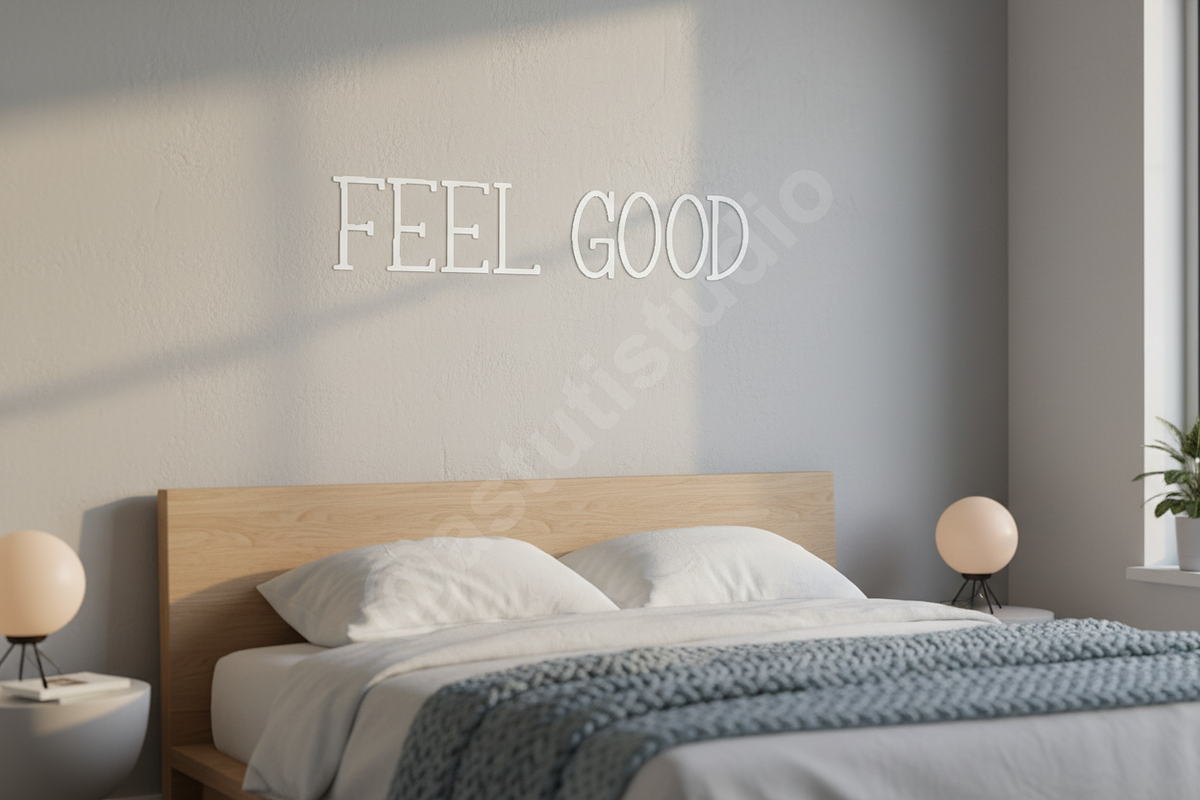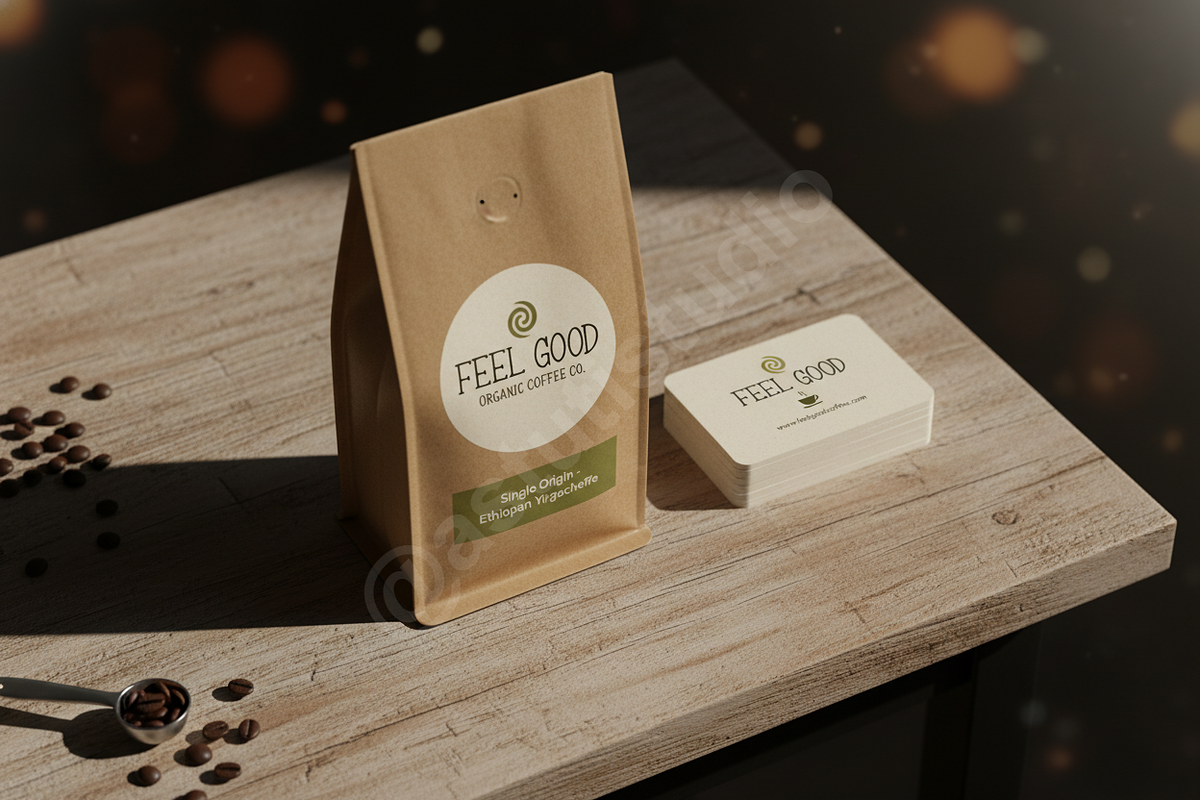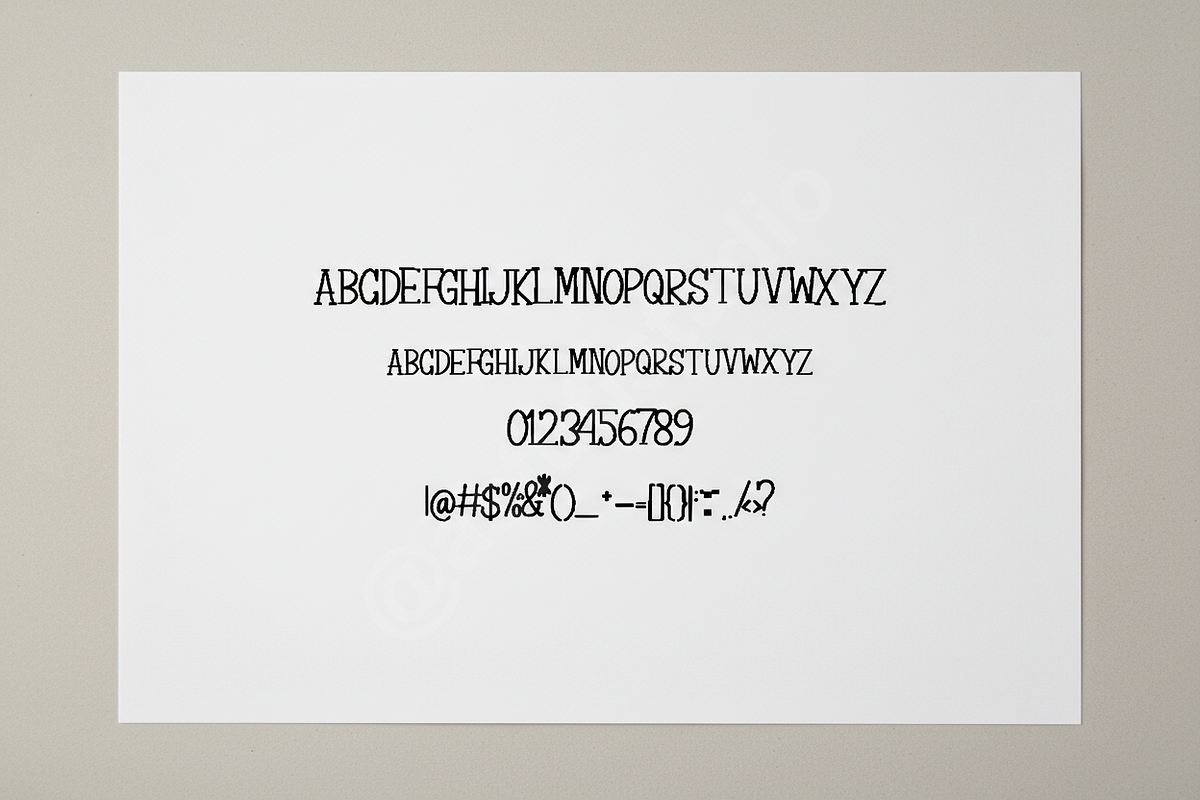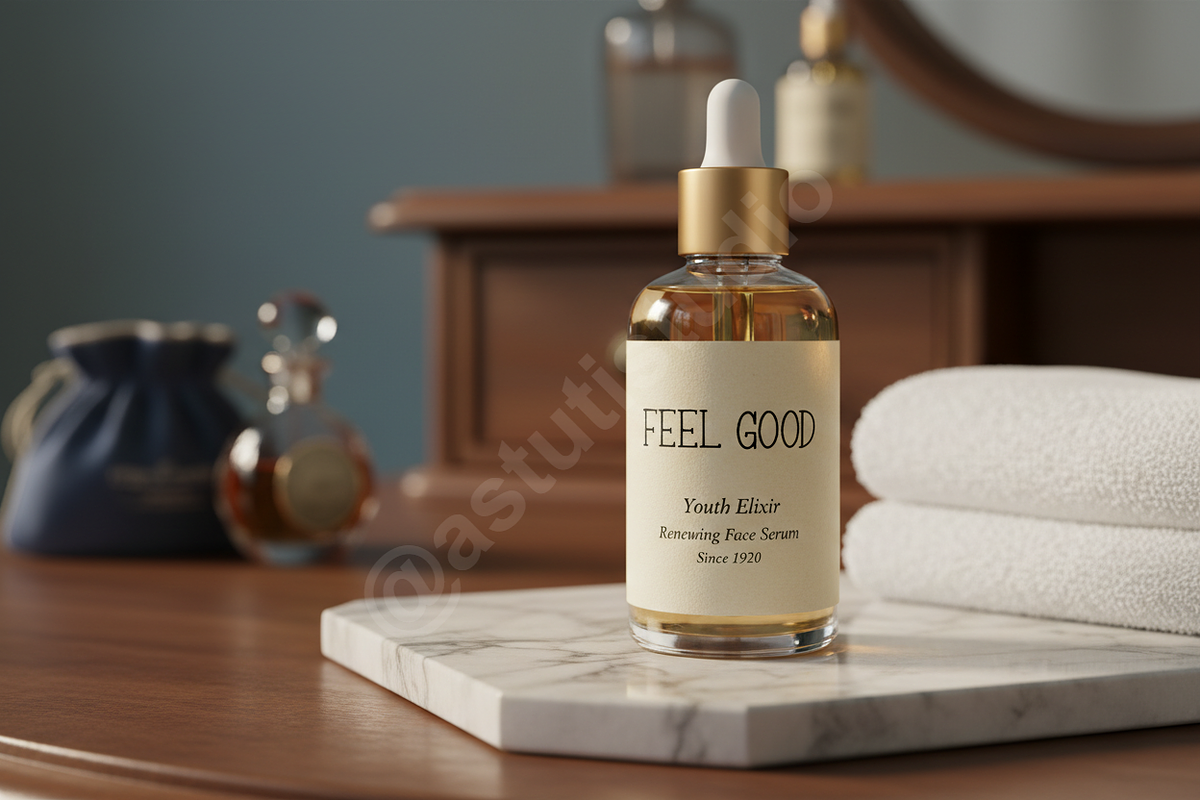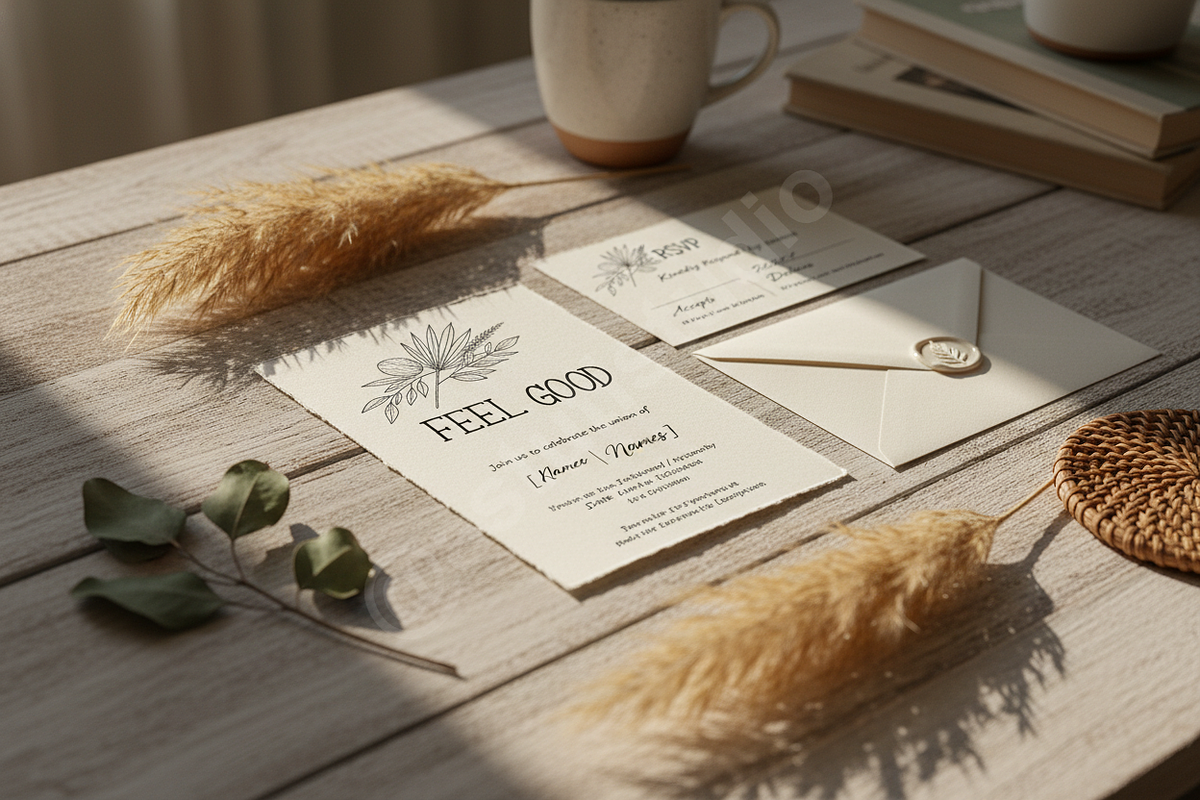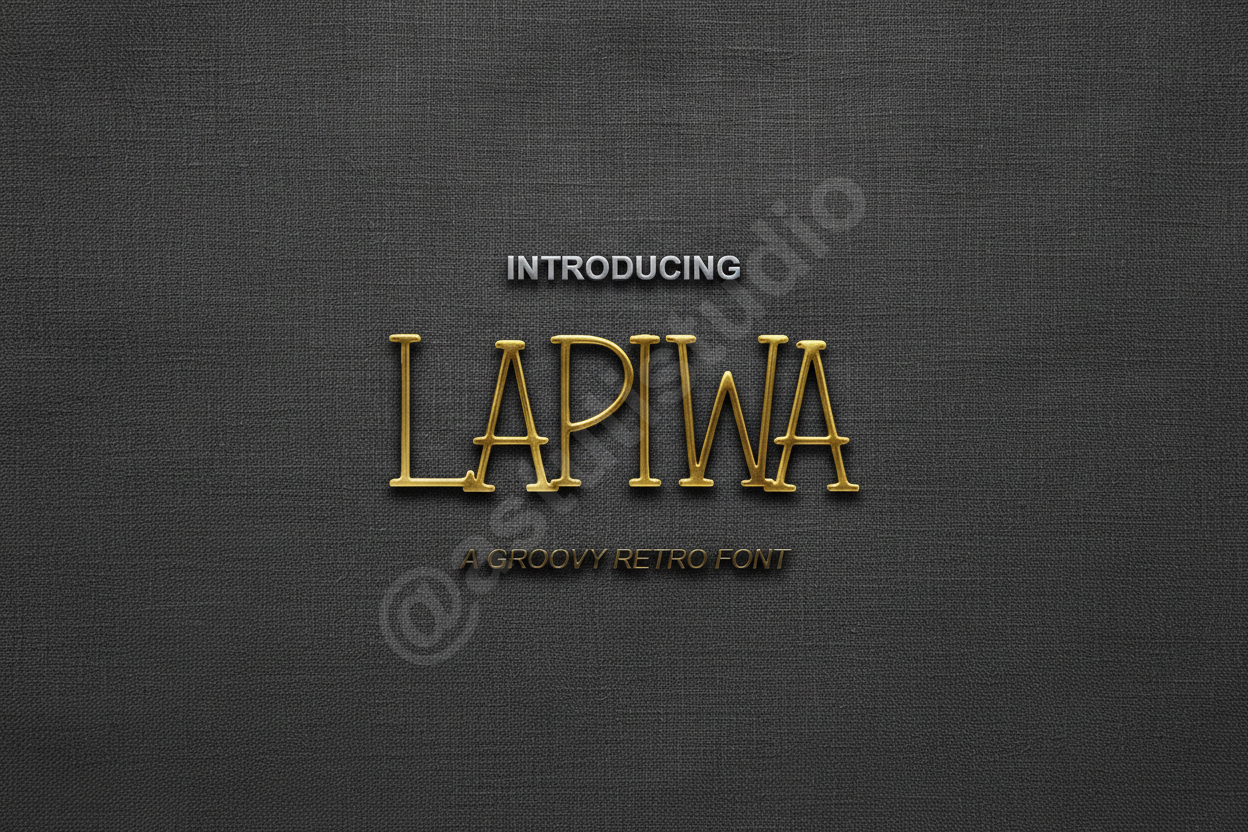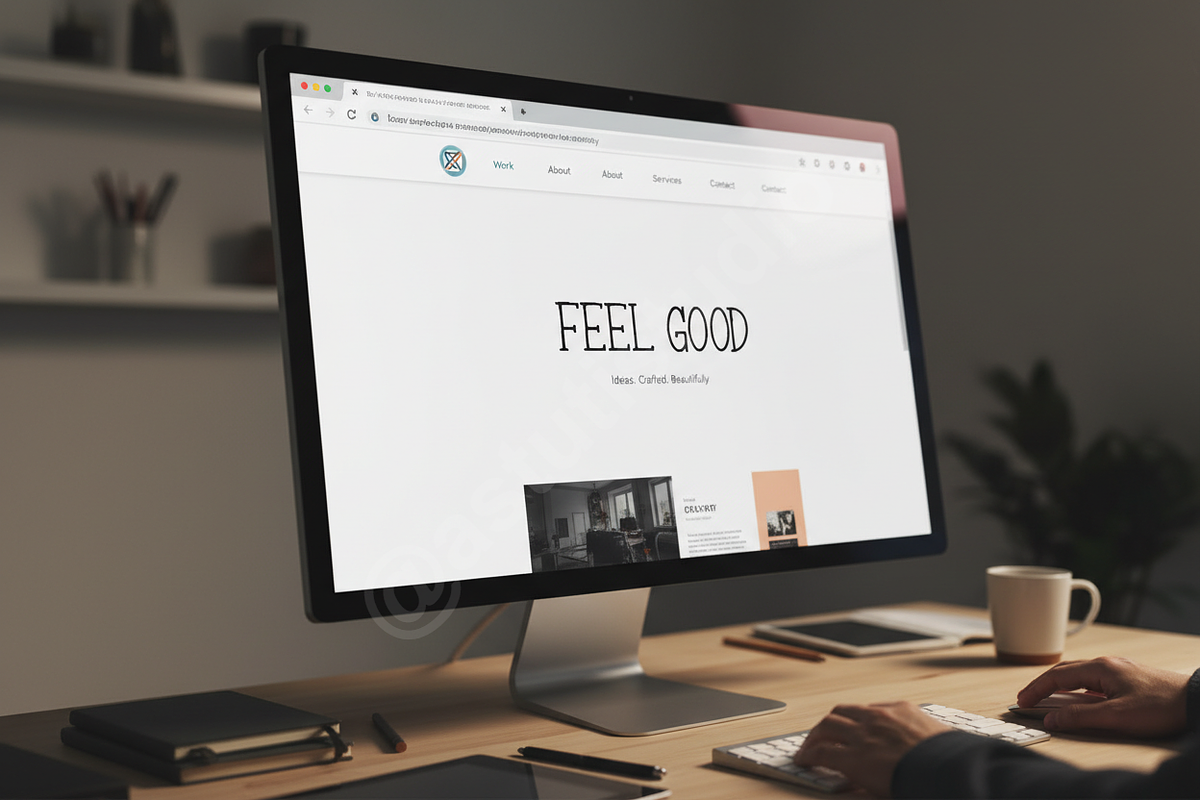
Lapiwa - Elegant Serif Typeface
Introduction Lapiwa is a premium serif typeface meticulously crafted for high-end aesthetics and sophisticated visual storytelling. With its refined strokes and balanced proportions, Lapiwa brings a sense of timeless luxury to every character. It is the perfect choice for designers working on editorial layouts, high-fashion branding, and elevated social media content that requires a touch of class.
- High-contrast letterforms for a premium feel
- Unique stylistic alternates and ligatures
- Full multilingual support for global accessibility
- Precision kerning for professional-grade typography
- Optimized for both print and digital high-resolution displays
- Comprehensive character set including uppercase, lowercase, numbers, and punctuation